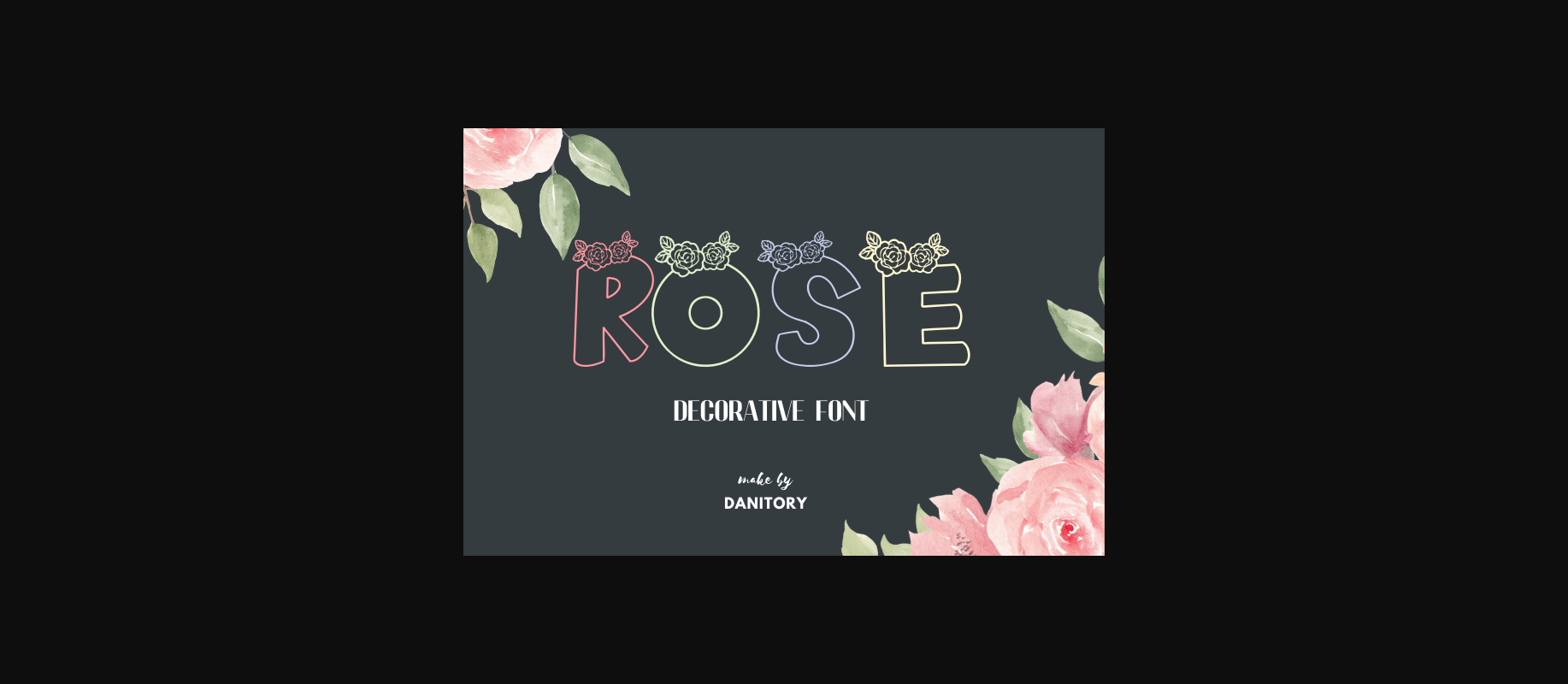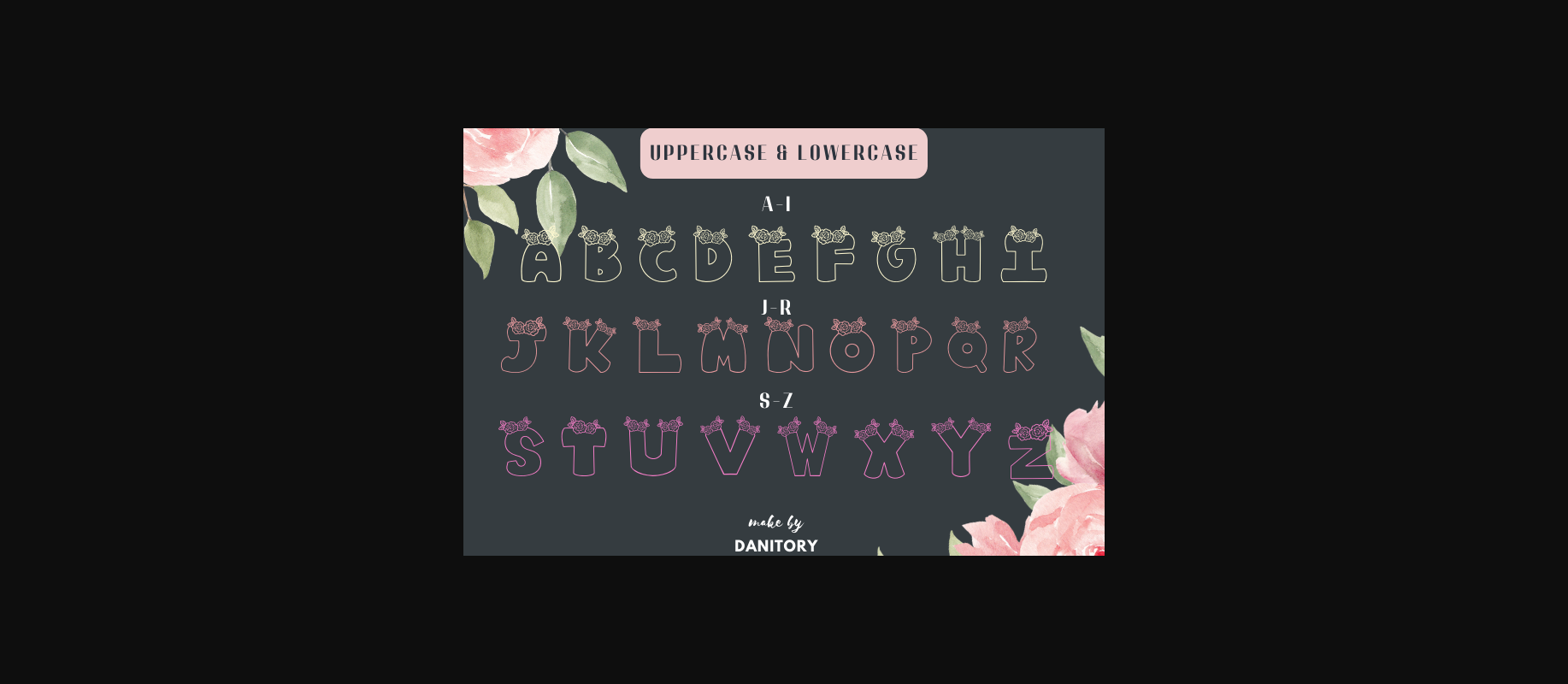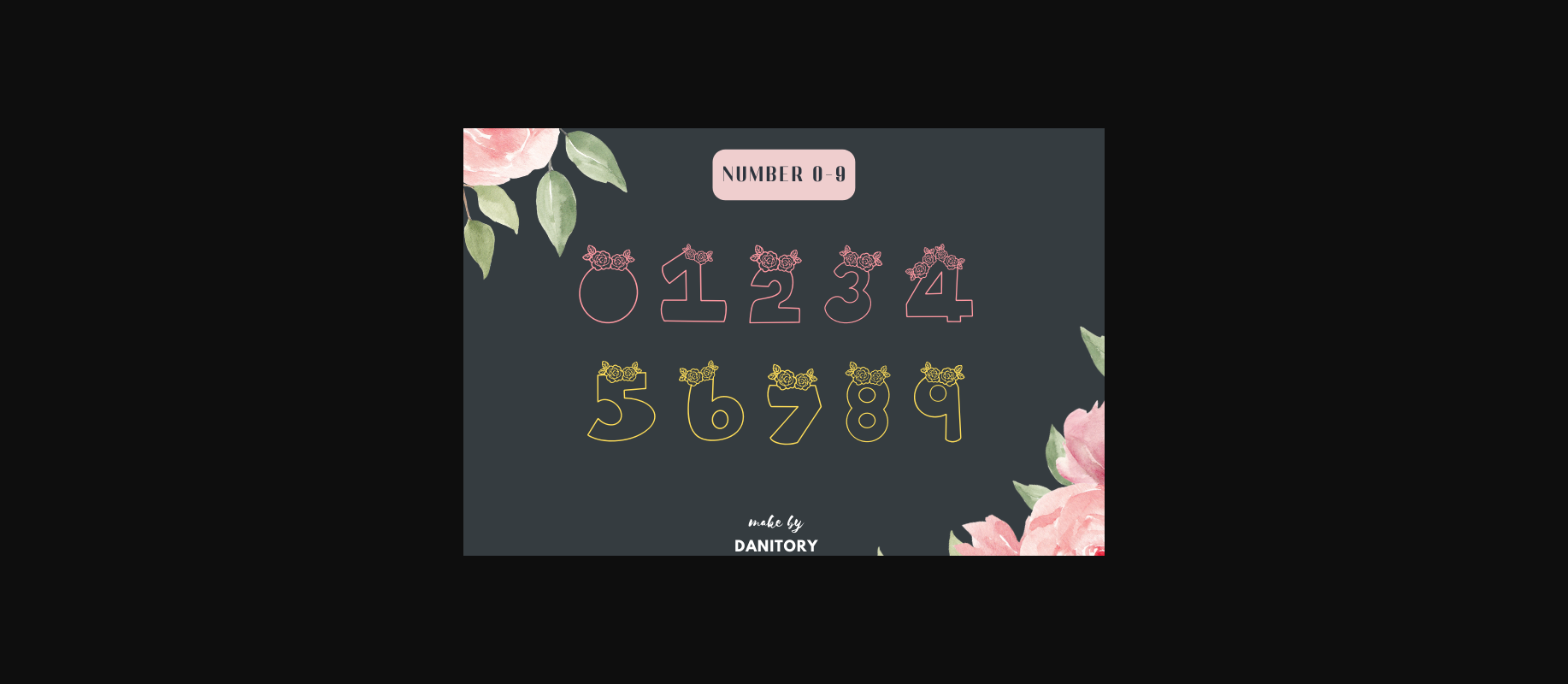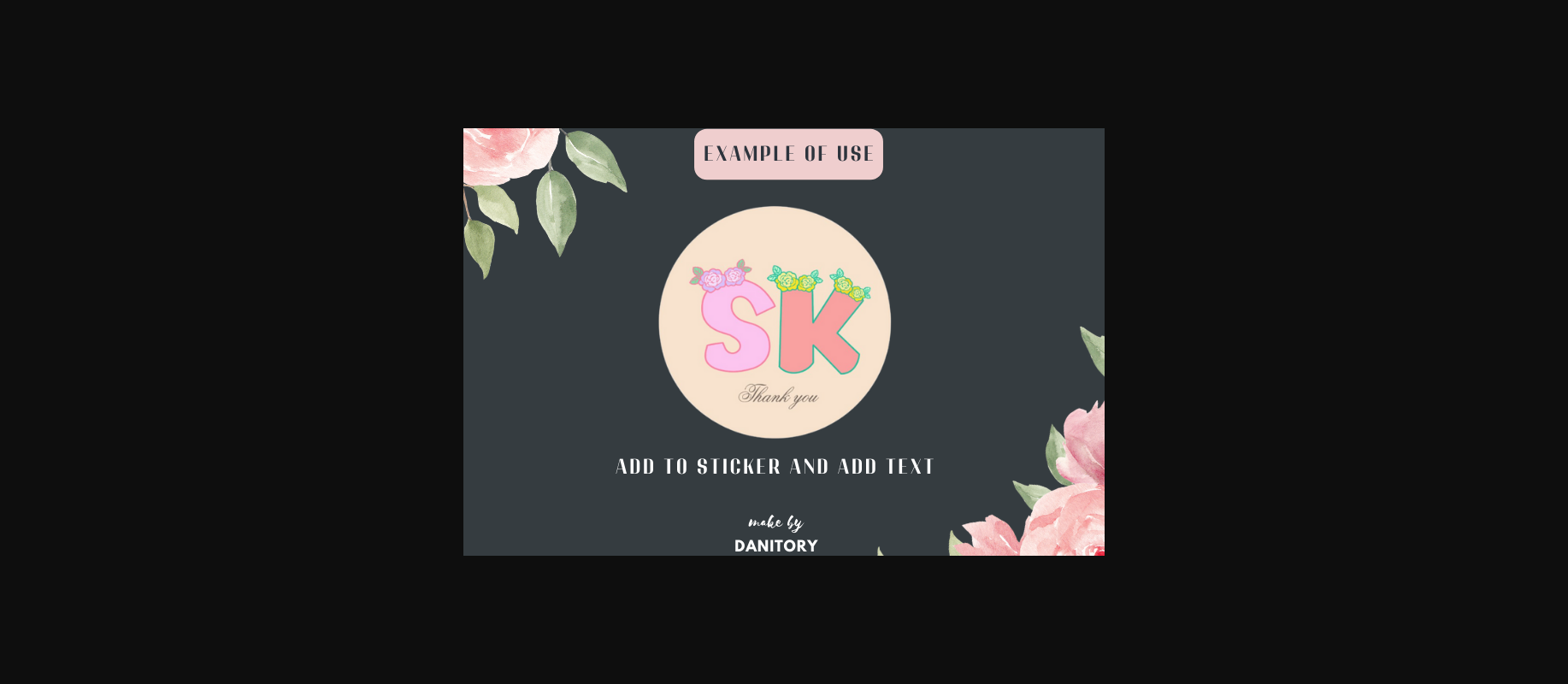
About Rose Font
We recommend decorative fonts. Rose font This is a versatile font that adds a touch of whimsy with tiny roses. On the letters to create a charming and elegant look to your designs! This cute font brings fun and magic to any creative project. From children’s books to greeting cards, posters and more, let your imagination run wild with this rose-themed font.